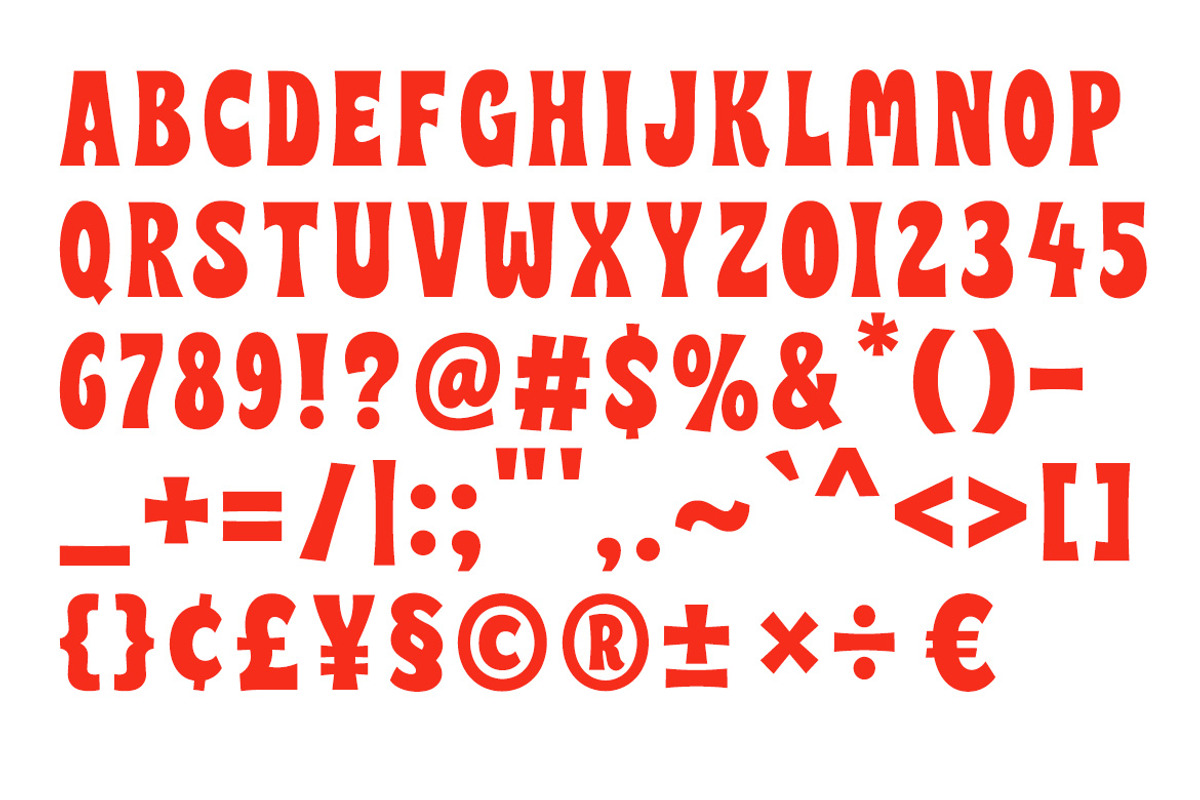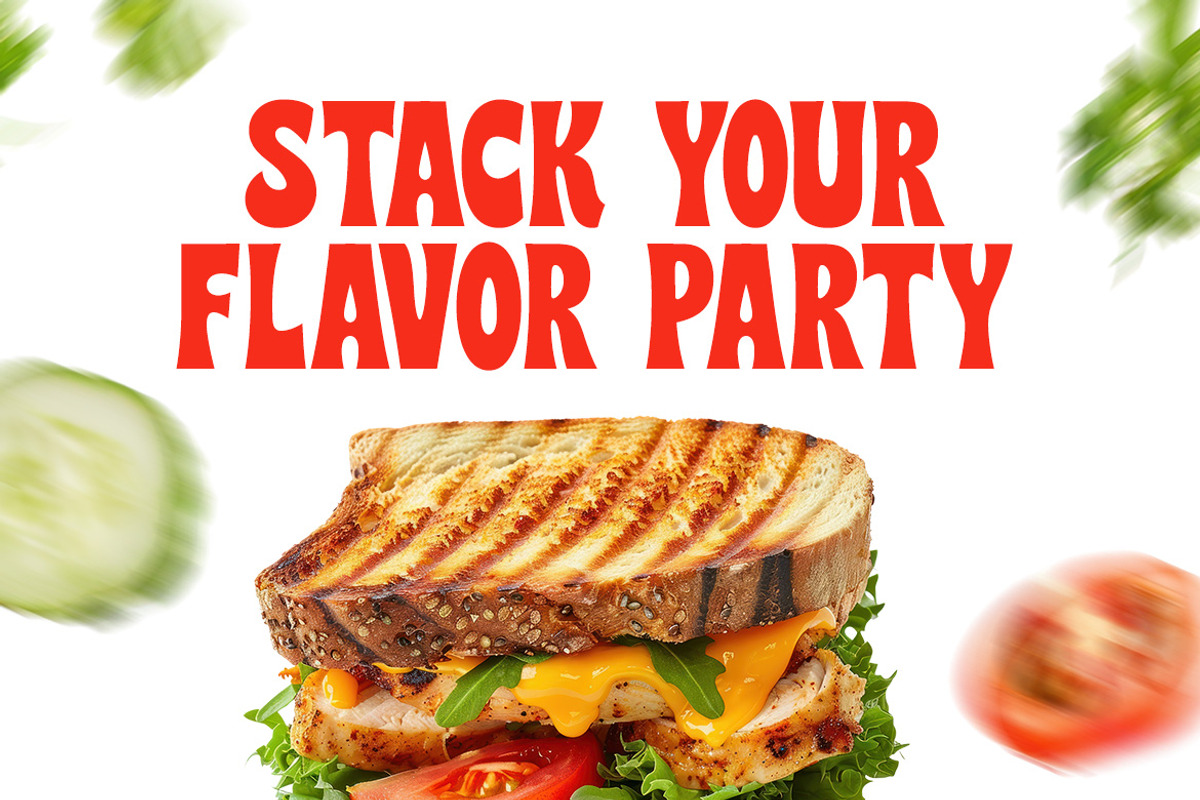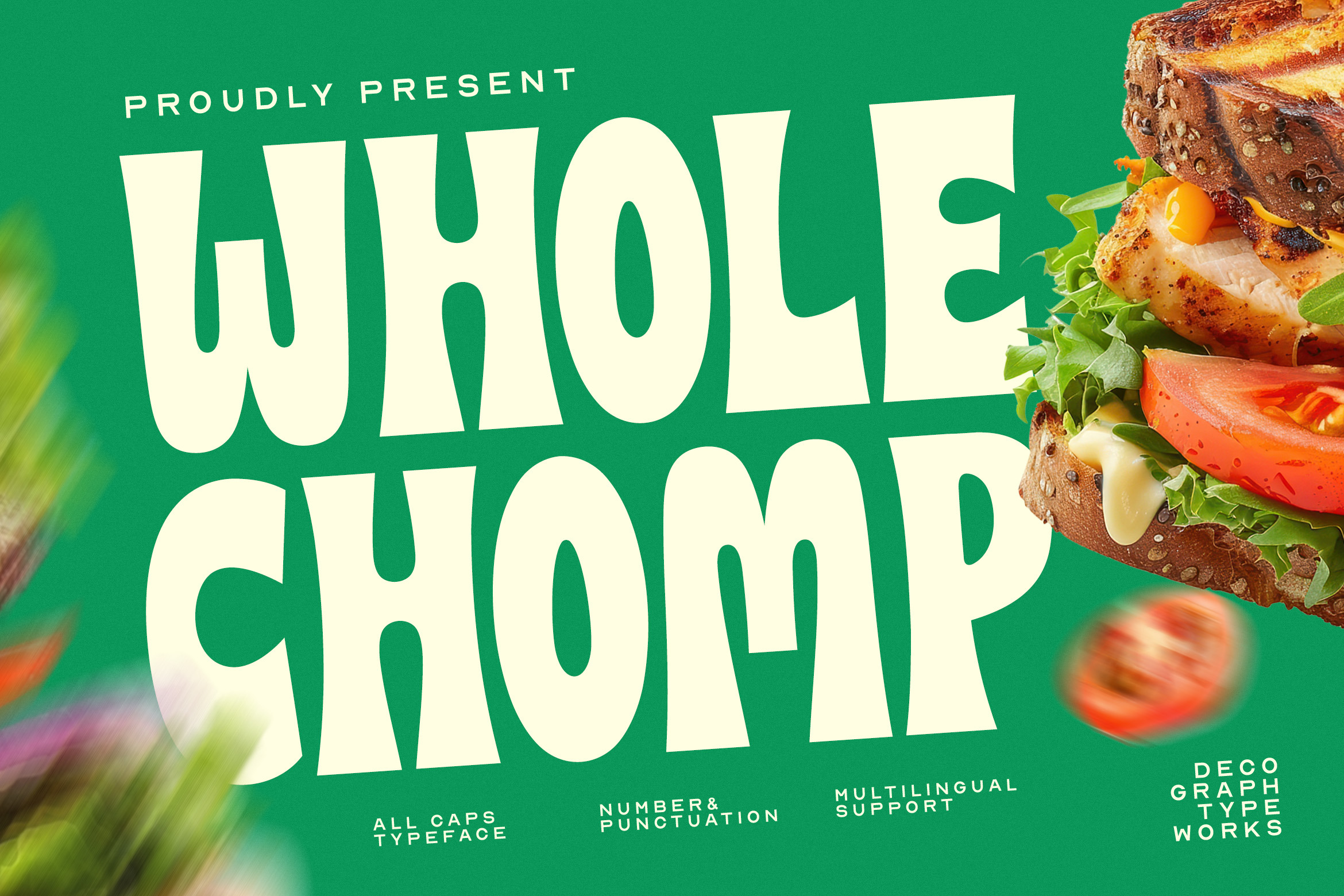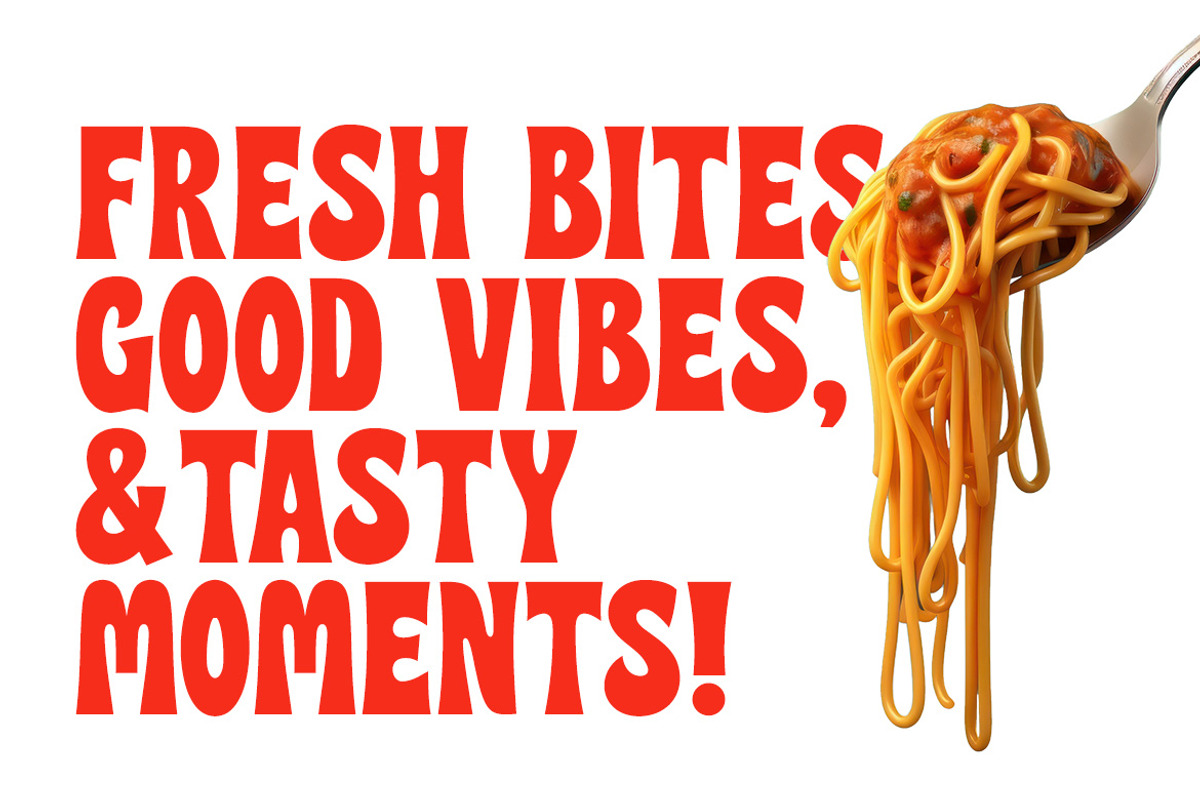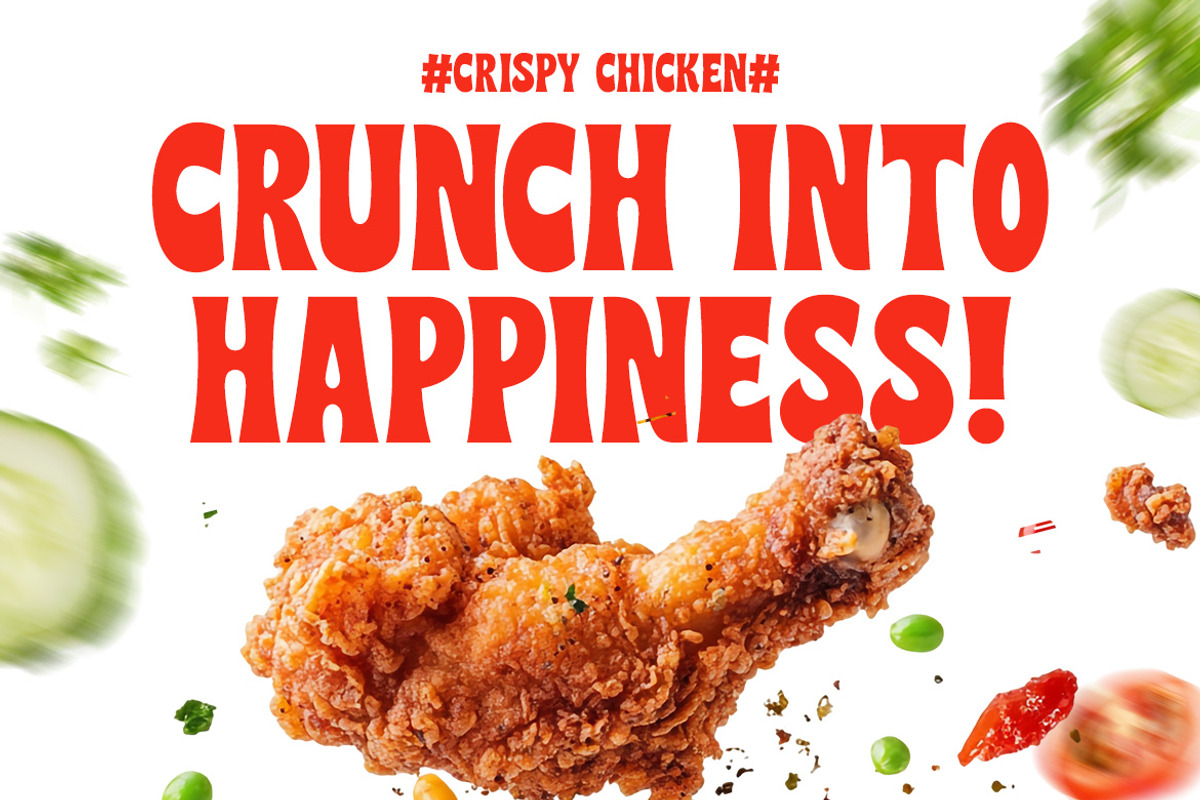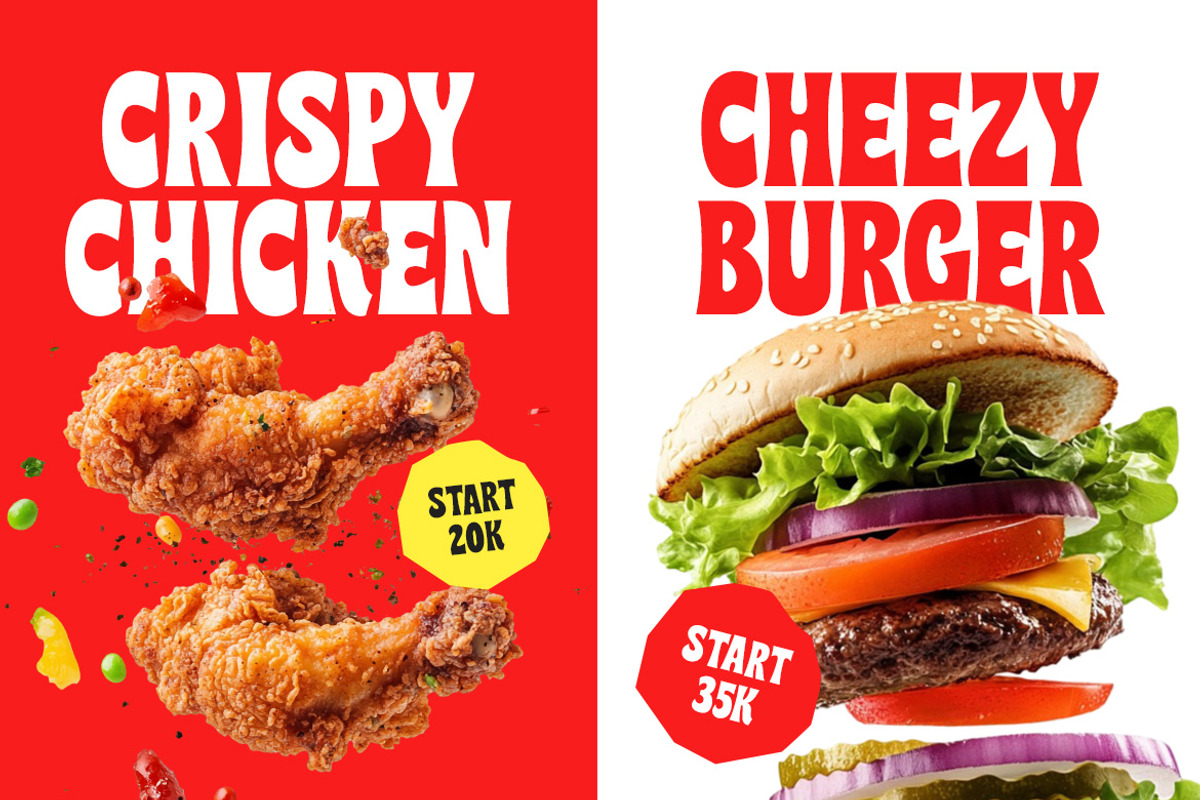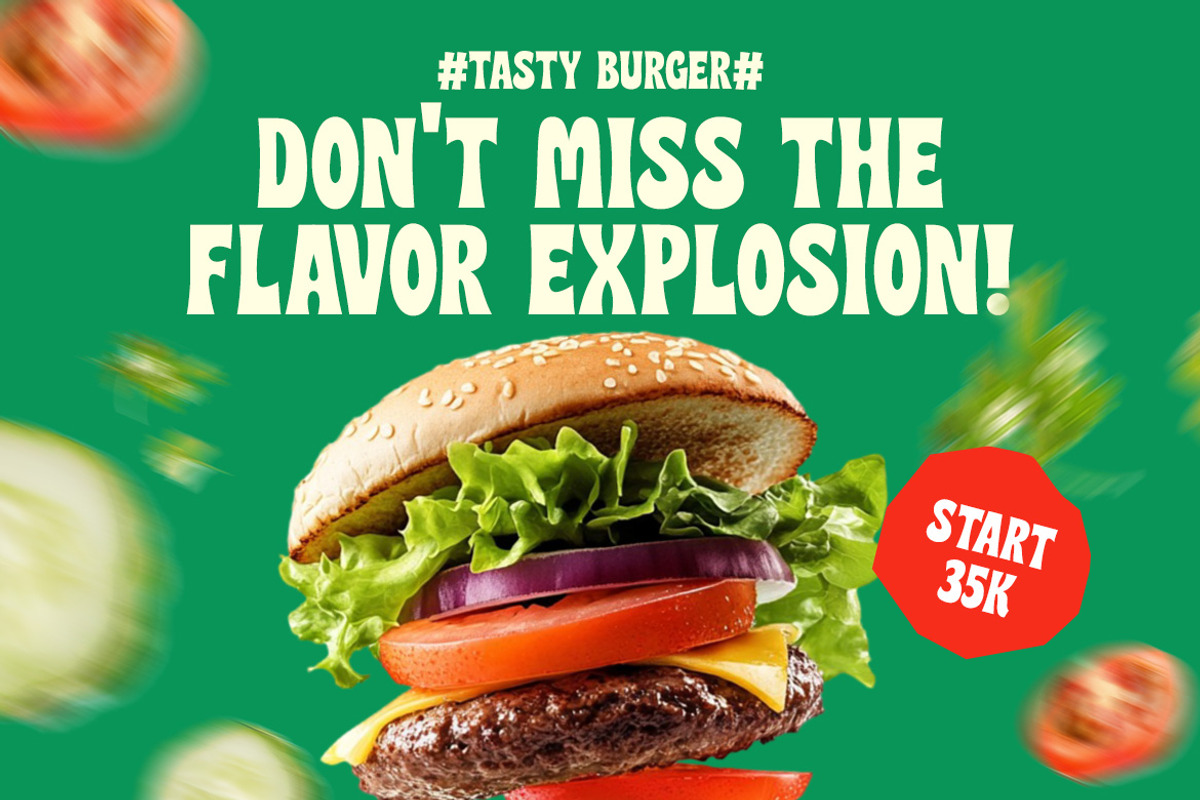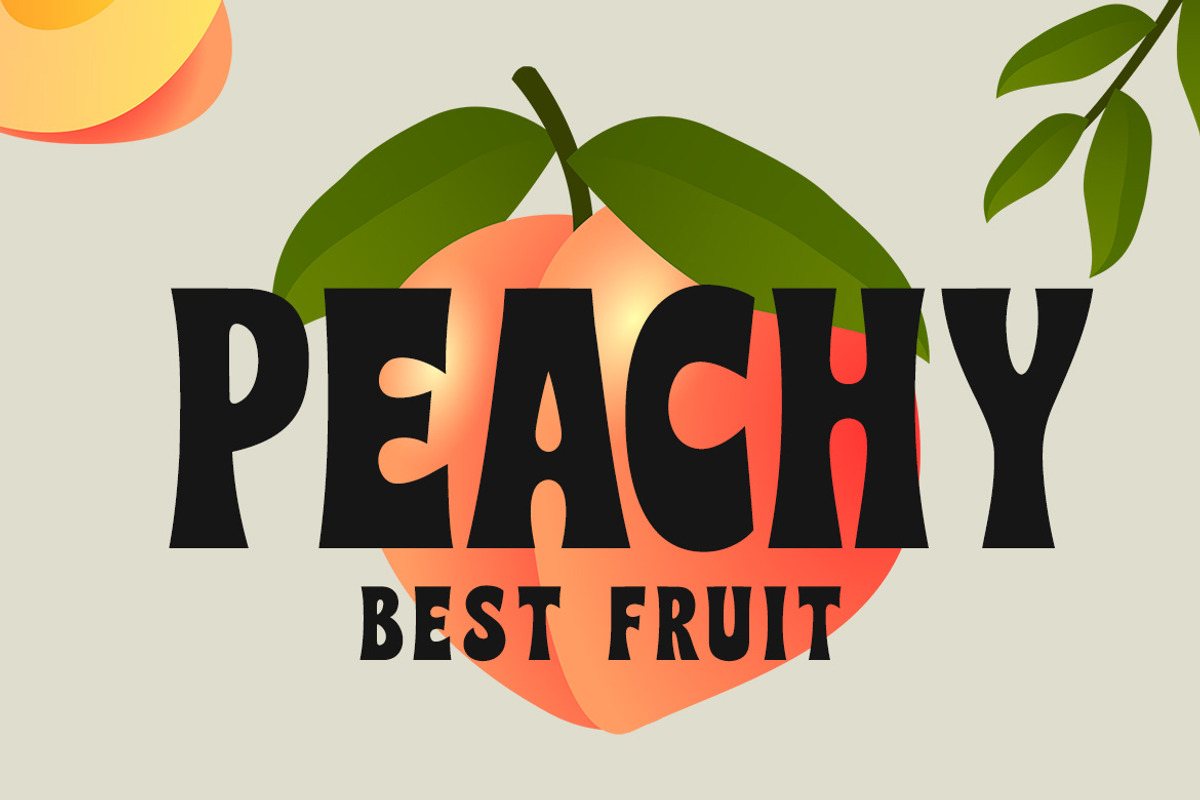
WHOLE CHOMP – Bold Display Font
WHOLE CHOMP is a bold all-caps display typeface built around chunky, irregular letterforms and exaggerated curves. Its heavy low-contrast strokes, uneven proportions, compact counters, and softly distorted construction create a playful retro character without losing readability. The mix of broad shapes and quirky internal forms gives headlines an energetic, friendly presence that feels nostalgic, casual, and highly expressive. Designed for food branding, restaurant identities, packaging, posters, menu graphics, merchandise, and advertising, WHOLE CHOMP works best at large sizes where its distinctive silhouette and lively rhythm can become the main visual focus.
Smooth Kerning